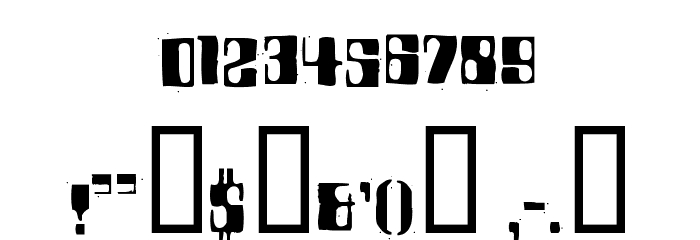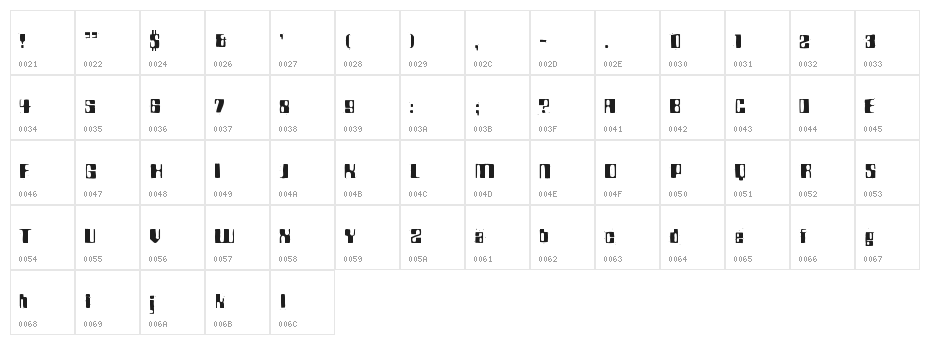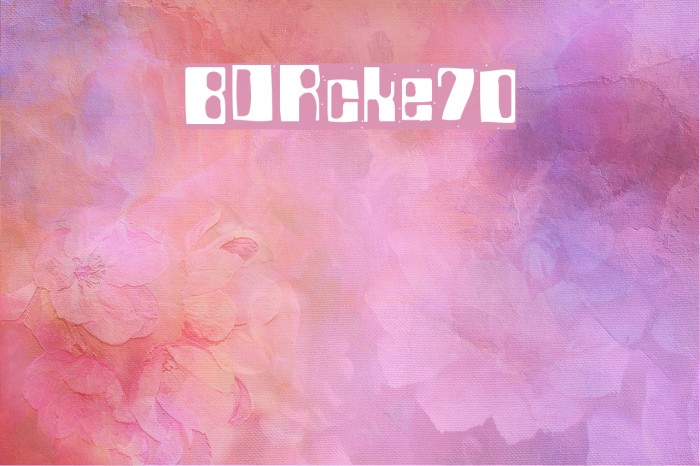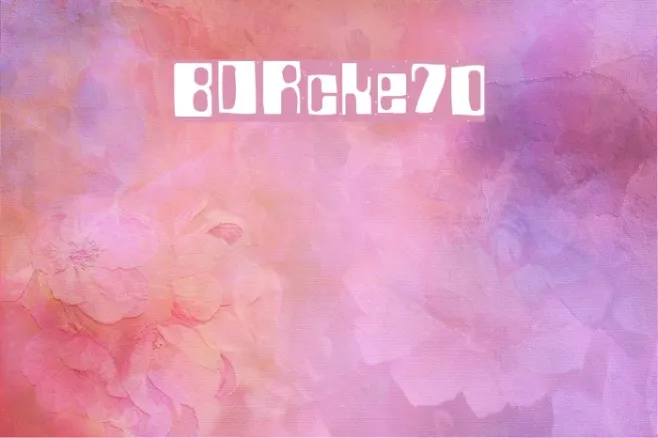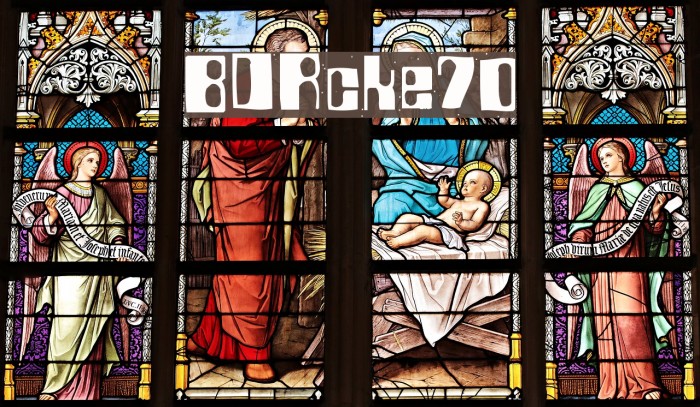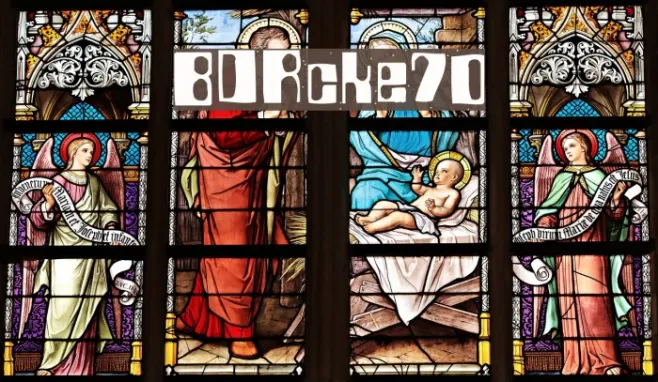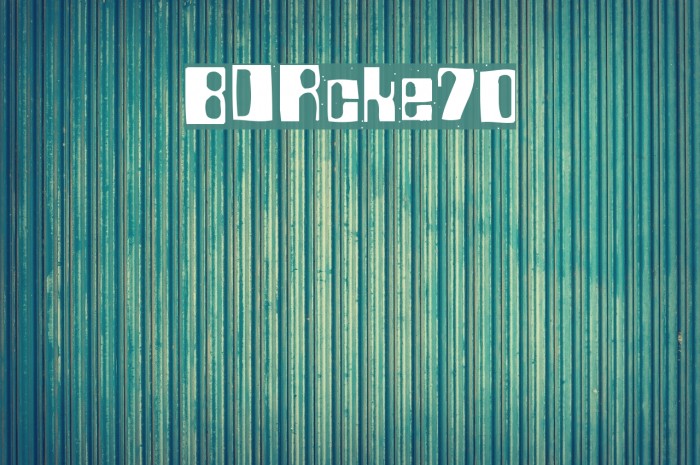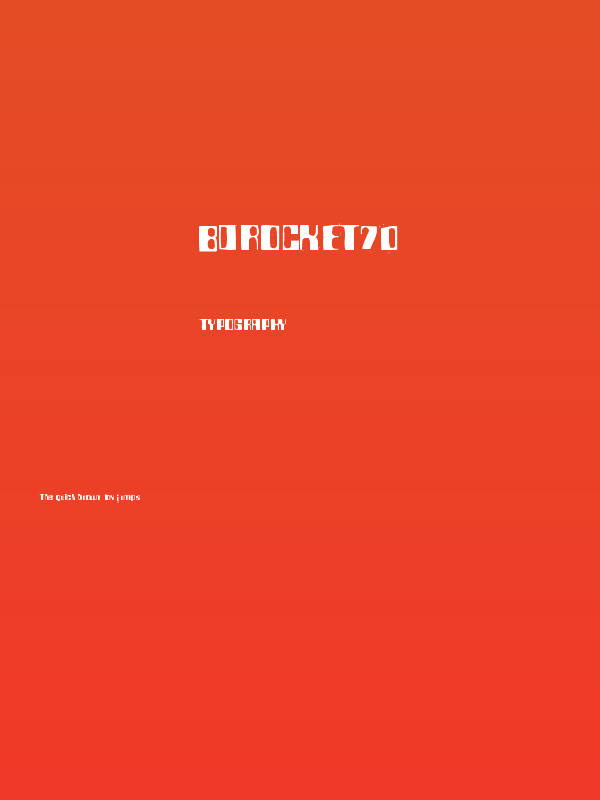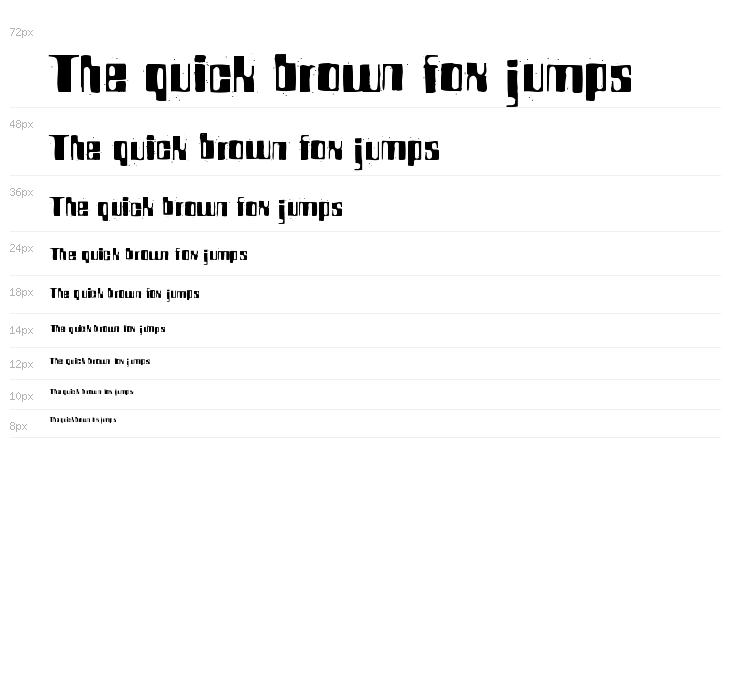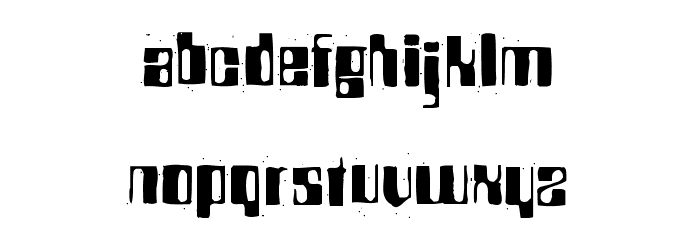
BDRocket70 Font
BDRocket70 Description
This font features a bold and striking design with a stencil-like appearance, characterized by its blocky and geometric letterforms. The uppercase letters are particularly bold, with consistent stroke widths and a slightly condensed structure. The lowercase letters maintain the same boldness, offering a cohesive look throughout. The numbers and special characters follow the same design principles, ensuring uniformity. The font's unique style makes it stand out, with a modern and industrial feel that is both eye-catching and functional.
Proposed ProjectsIdeal for branding, posters, headlines, and any project needing a bold, industrial aesthetic.